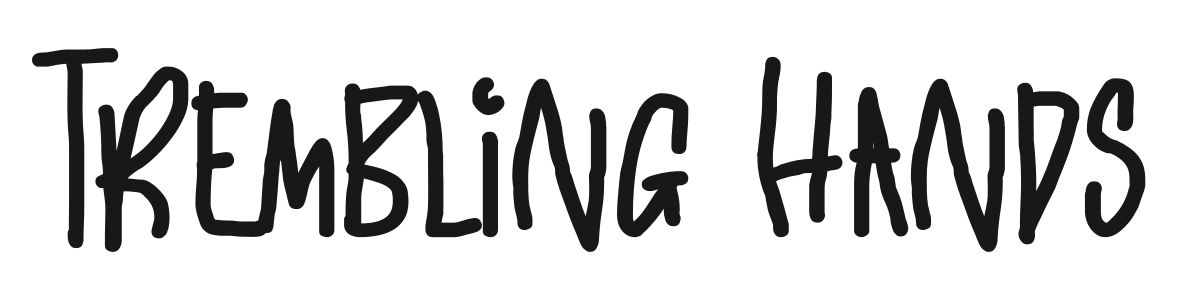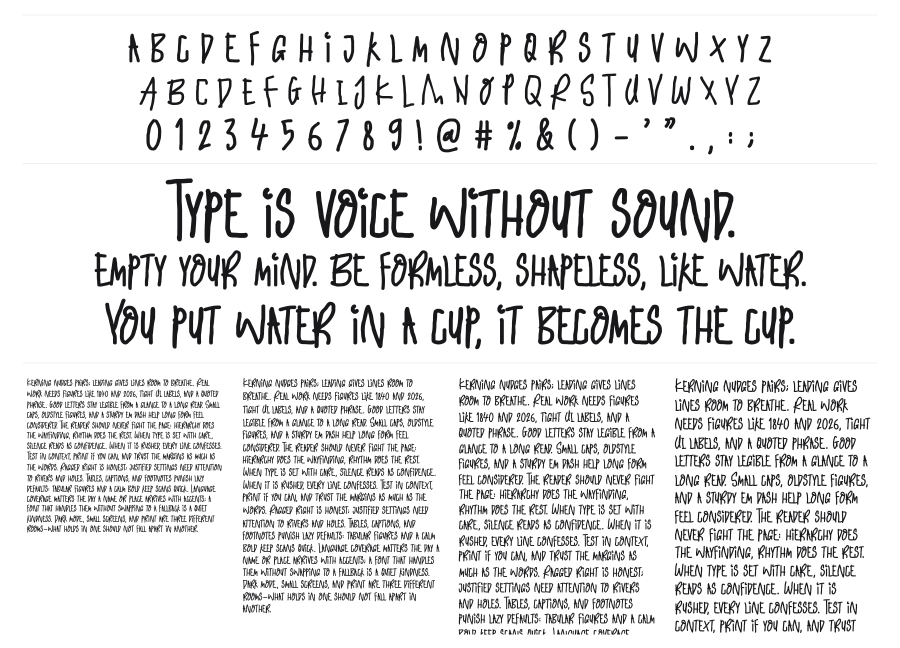
Trembling Hands
Trembling Hands is a bold upright handwritten display font that looks like it was drawn quickly with a thick marker by slightly unsteady fingers. The irregularity is the point: each character tilts and wobbles just enough to feel alive without becoming illegible. Great for titles, packaging, and branding that needs a raw, human touch.